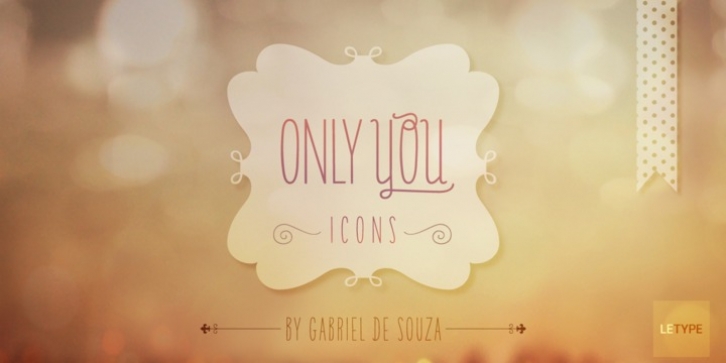
Only You Icons was designed by Gabriel de Souza and published by LeType. Only You Icons contains 6 styles and family package options.
Only You Icons, with more than 300 options between icons, ribbons and frames that will make your project very attractive and romantic. Only You Icons is brilliant. Also available Only you Pro.
Only You Icons Adorable·
Only You Icons Charming·
Only You Icons Gracious·
Only You Icons Lovely·
Only You Icons Romantic·